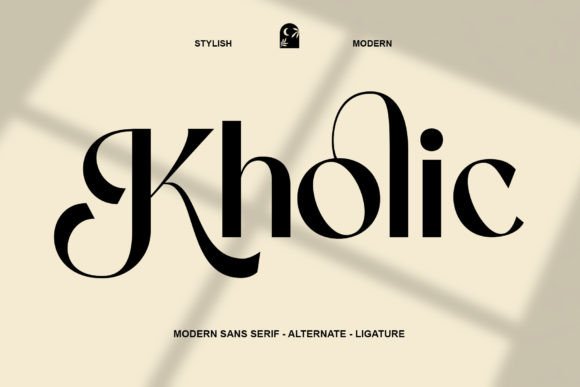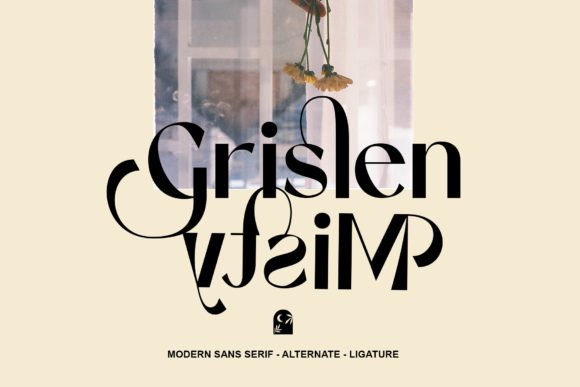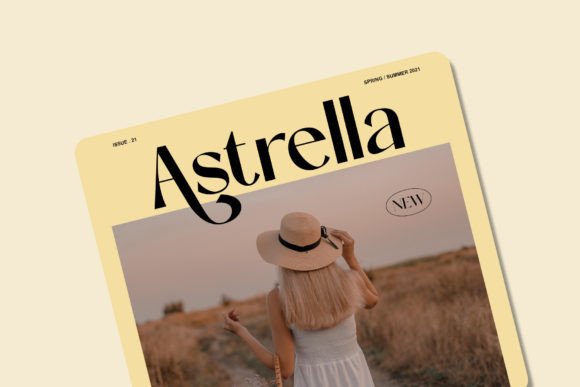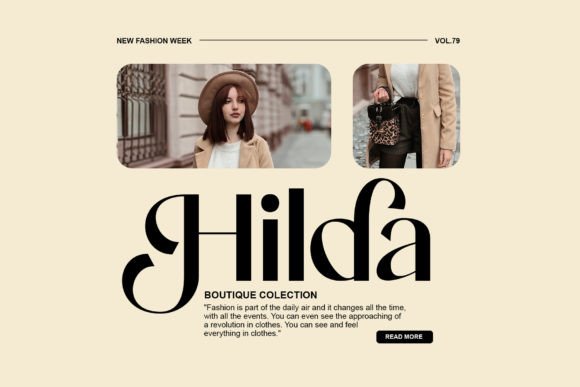
Kholic Font: Stylish Modern Typography for Branding & Logo Design
About the Kholic Font
Explore the possibilities with Kholic Font, a font that offers both beauty and functionality. Kholic is a special modern stylistic style font. Made with accurate accuracy with beautiful curves. With alternative characters and ligatures that make your work very special. It is perfect for branding design, logos, greeting cards, and title packaging. and other designs. Immediately use our fonts to make your work even more amazing.
Kholic’s strong curves and stylistic flourishes lend themselves well to headlines, logos, and short-form text in branding projects, particularly those with a modern, sophisticated feel. It excels in packaging design where its distinctive character can create a memorable impression. However, its decorative nature makes it less suitable for body text or UI elements where readability is paramount; extended use could prove visually overwhelming.
For optimal impact, pair Kholic with a clean sans-serif font like Lato or Open Sans for body copy, maintaining a balance between Kholic’s expressive personality and a clear, legible base font. Alternatively, a classic serif like Garamond or a geometric sans-serif like Futura can provide a sophisticated counterpoint, creating visual tension and interest.
Kholic projects a bold and elegant personality, best suited for brands aiming for a high-end, distinctive image. Its modern aesthetic avoids being overly playful or whimsical, making it suitable for luxury goods, fashion, or premium lifestyle brands.